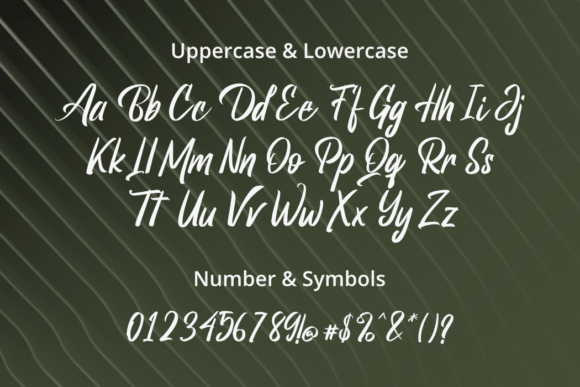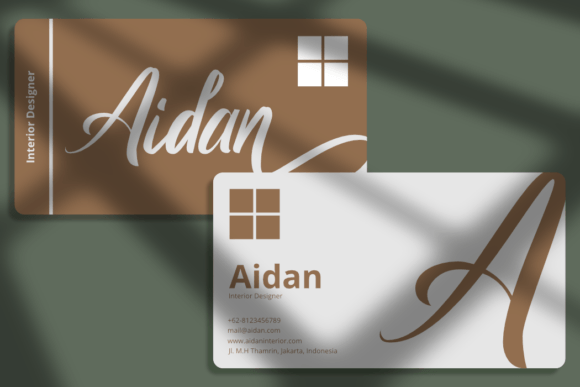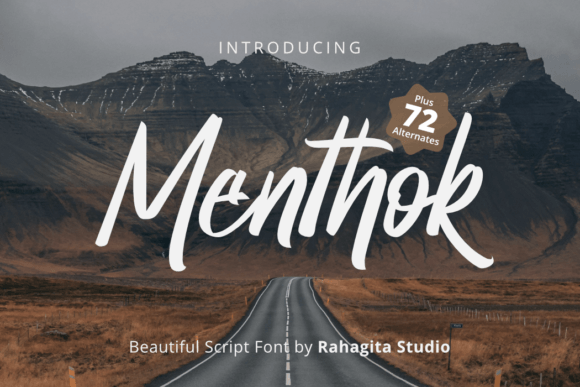
Menthok Font
Designer: Rahagita Studio
Menthok Font is a captivating script that effortlessly blends the delicate beauty of love with the exhilarating spirit of adventure. With its graceful curves and enchanting swirls, Menthok exudes a sense of romance and wanderlust, igniting excitement and passion in every design.